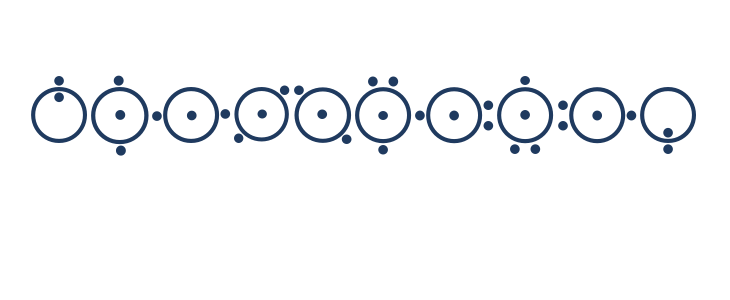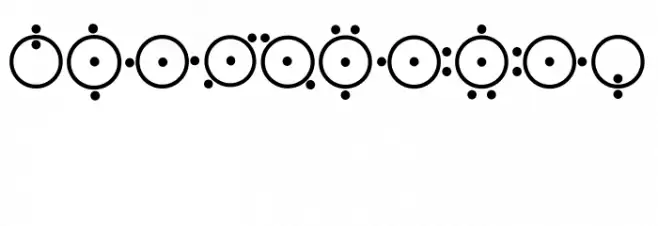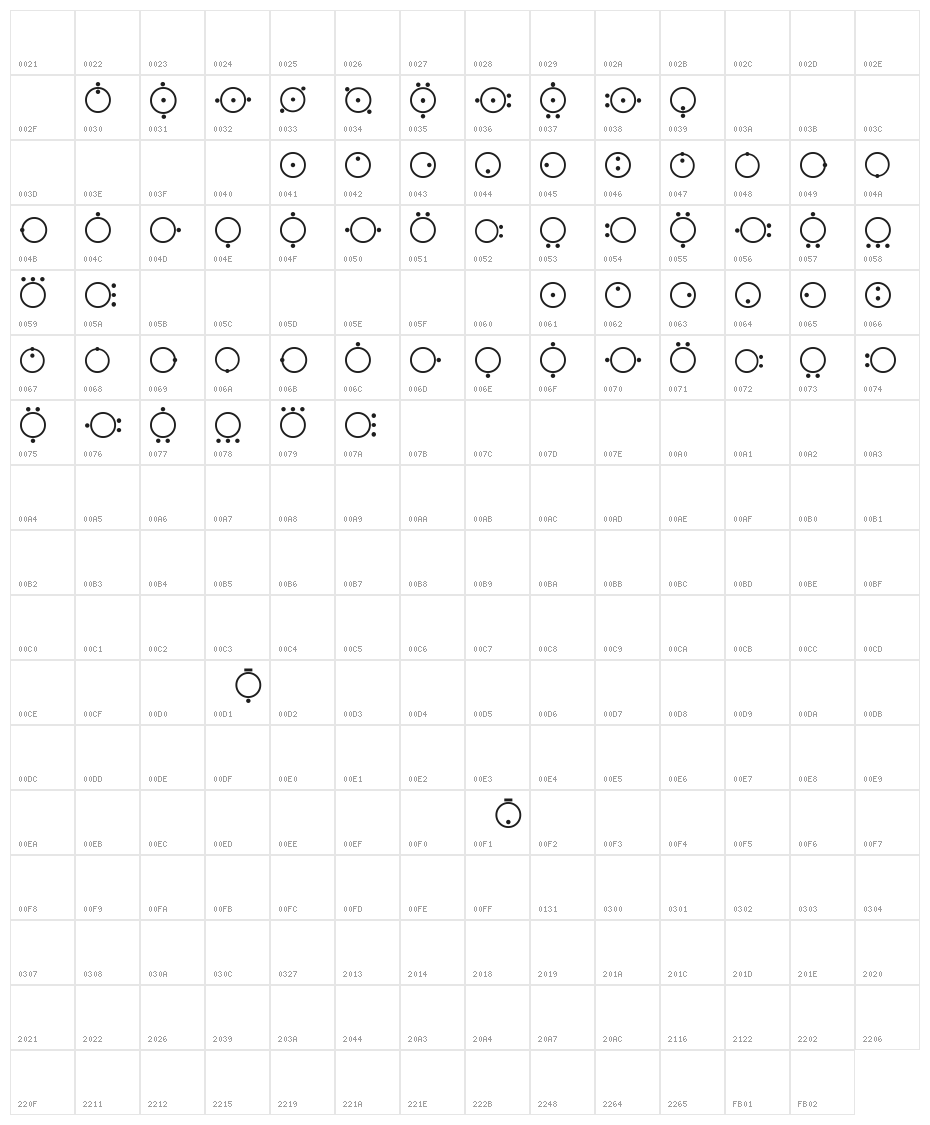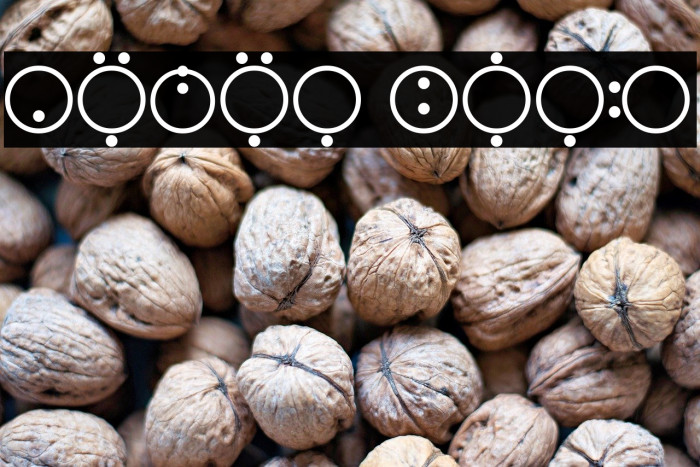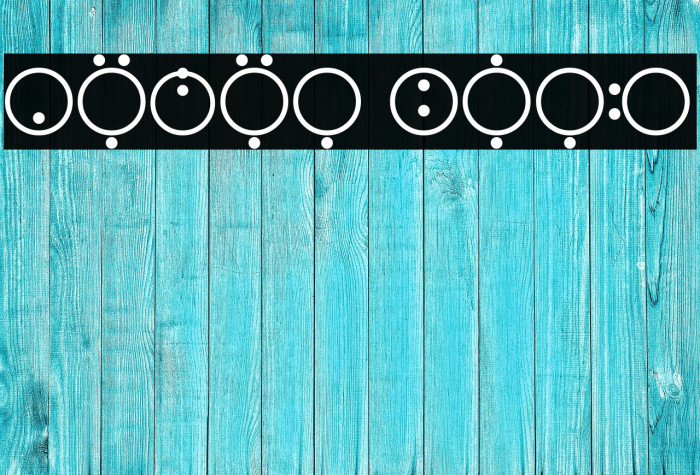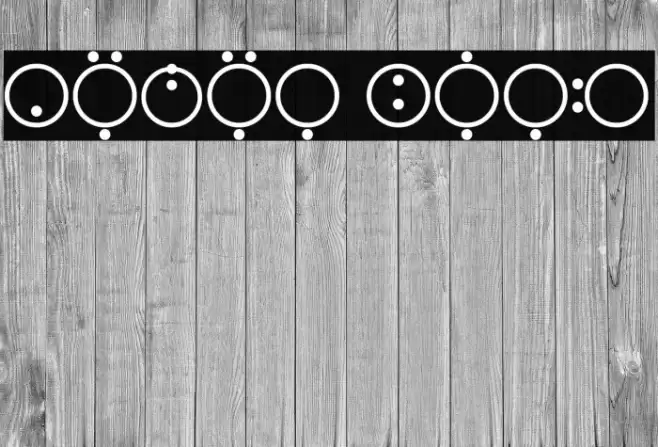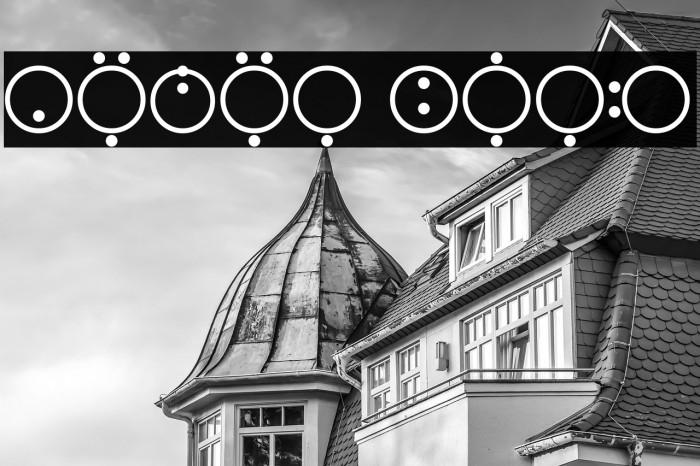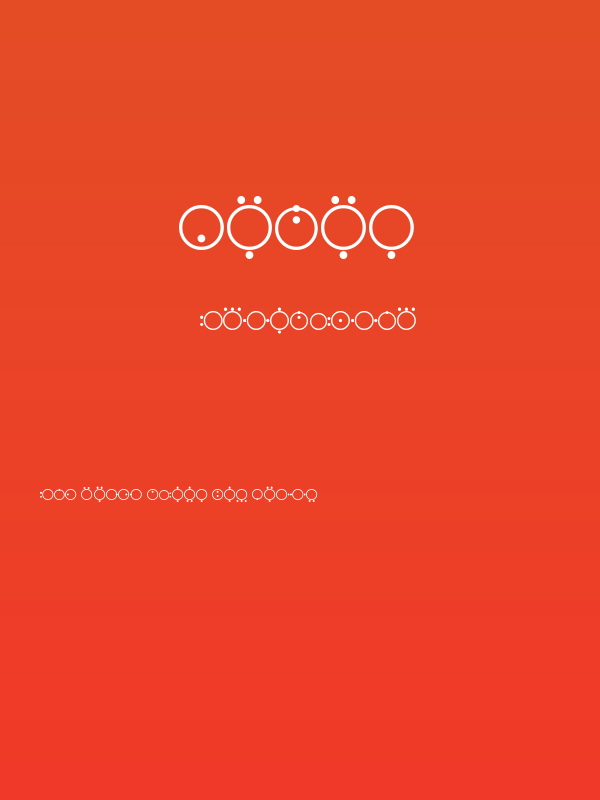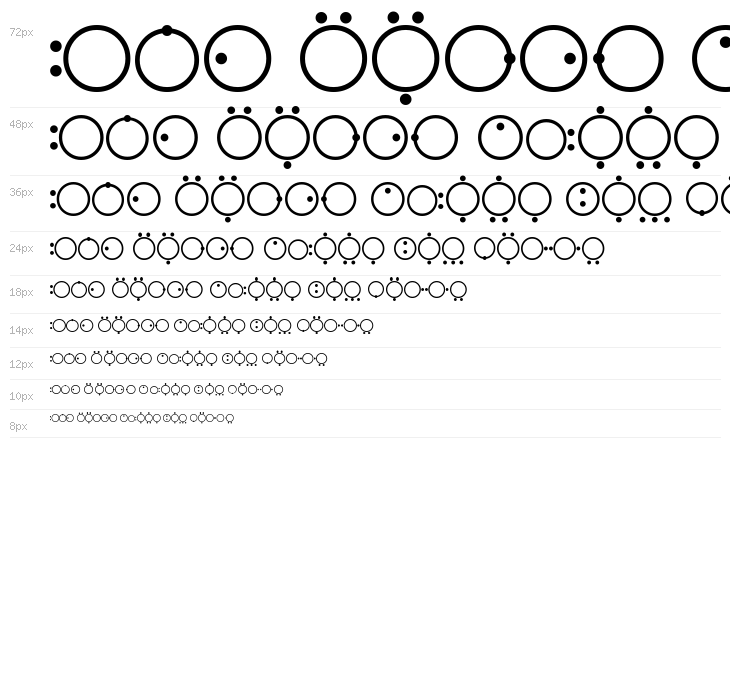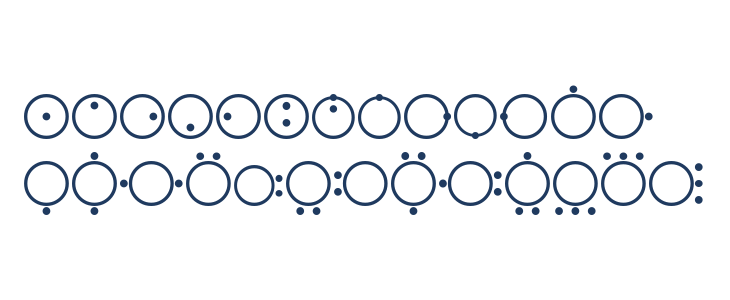
Dugun Font
Dugun Description
This font is a highly decorative and abstract representation of characters, using circular forms with varying dot placements to differentiate each letter and symbol. The design is reminiscent of a futuristic or alien script, where each character is enclosed within a circle, and additional dots are strategically placed inside or outside the circle to create unique identifiers for each letter or number. The consistent use of circles gives the font a uniform and cohesive appearance, while the dot placements add an element of complexity and intrigue. This font is not intended for traditional readability but rather for artistic or thematic purposes where a sense of mystery or otherworldliness is desired.
| Overall Style | Futuristic, Abstract |
| Use Case | Logos, Posters, Thematic Designs |
| Proposed Projects | Ideal for sci-fi themed projects, escape room puzzles, or any creative work requiring an enigmatic or alien-like script. |